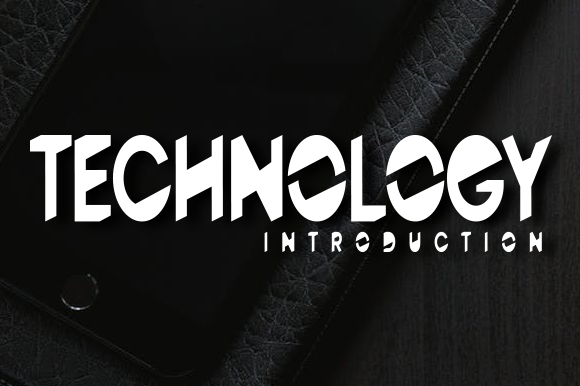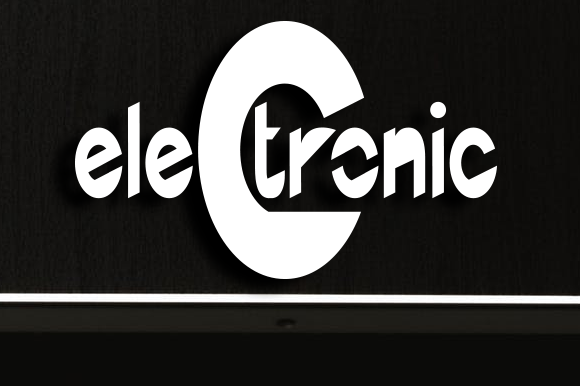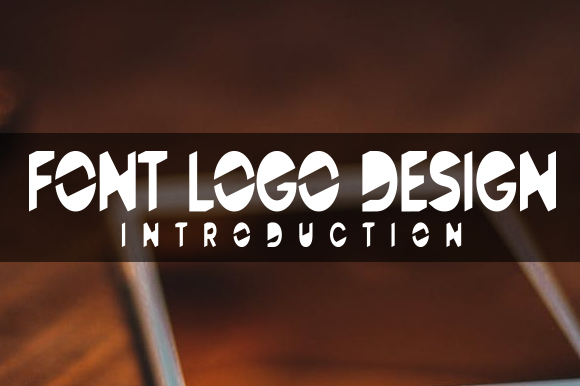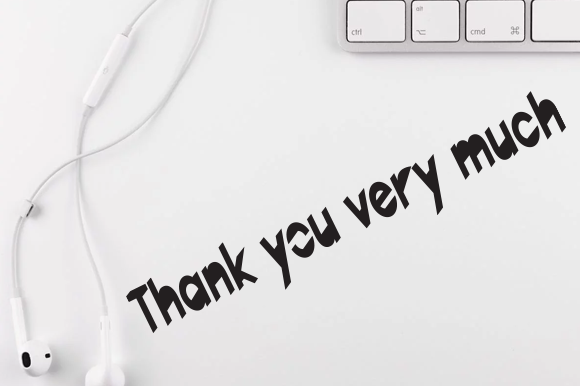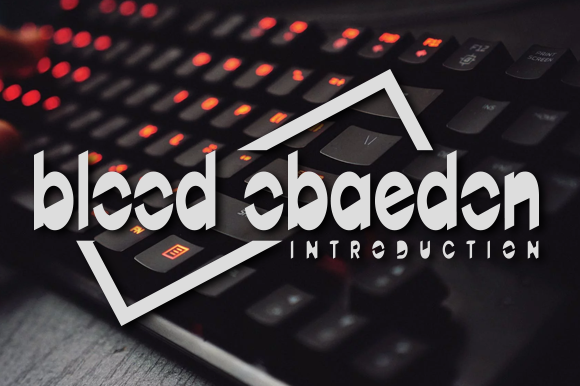
BloodObaedon Font: The Ultimate Display Font for DIY Enthusiasts
Are you a designer or crafter looking for a font that can add a touch of uniqueness to your DIY projects? Look no further than BloodObaedon Font! This modern and casual display font is designed to bring a fresh and authentic feel to any project, making it perfect for crafters and designers who want to stand out from the crowd.
The Unique Features of BloodObaedon Font
BloodObaedon Font boasts an incredibly unique feel that sets it apart from other display fonts. Its modern and casual design makes it perfect for a wide range of DIY projects, from crafting and scrapbooking to branding and advertising. With BloodObaedon Font, you can add a touch of personality to your projects and make them truly unforgettable.
Why Choose BloodObaedon Font?
So, why choose BloodObaedon Font for your DIY projects? Here are just a few reasons:
- Unique and Authentic: BloodObaedon Font has an incredibly unique feel that will set your projects apart from the crowd.
- Modern and Casual: The font’s modern and casual design makes it perfect for a wide range of DIY projects.
- Versatile: The font can be used for a wide range of projects, from crafting and scrapbooking to branding and advertising.
- Use it as a Display Font: BloodObaedon Font is designed to be used as a display font, so use it to add a bold and eye-catching touch to your projects.
- Pair it with Other Fonts: Pair BloodObaedon Font with other fonts to create a unique and interesting look.